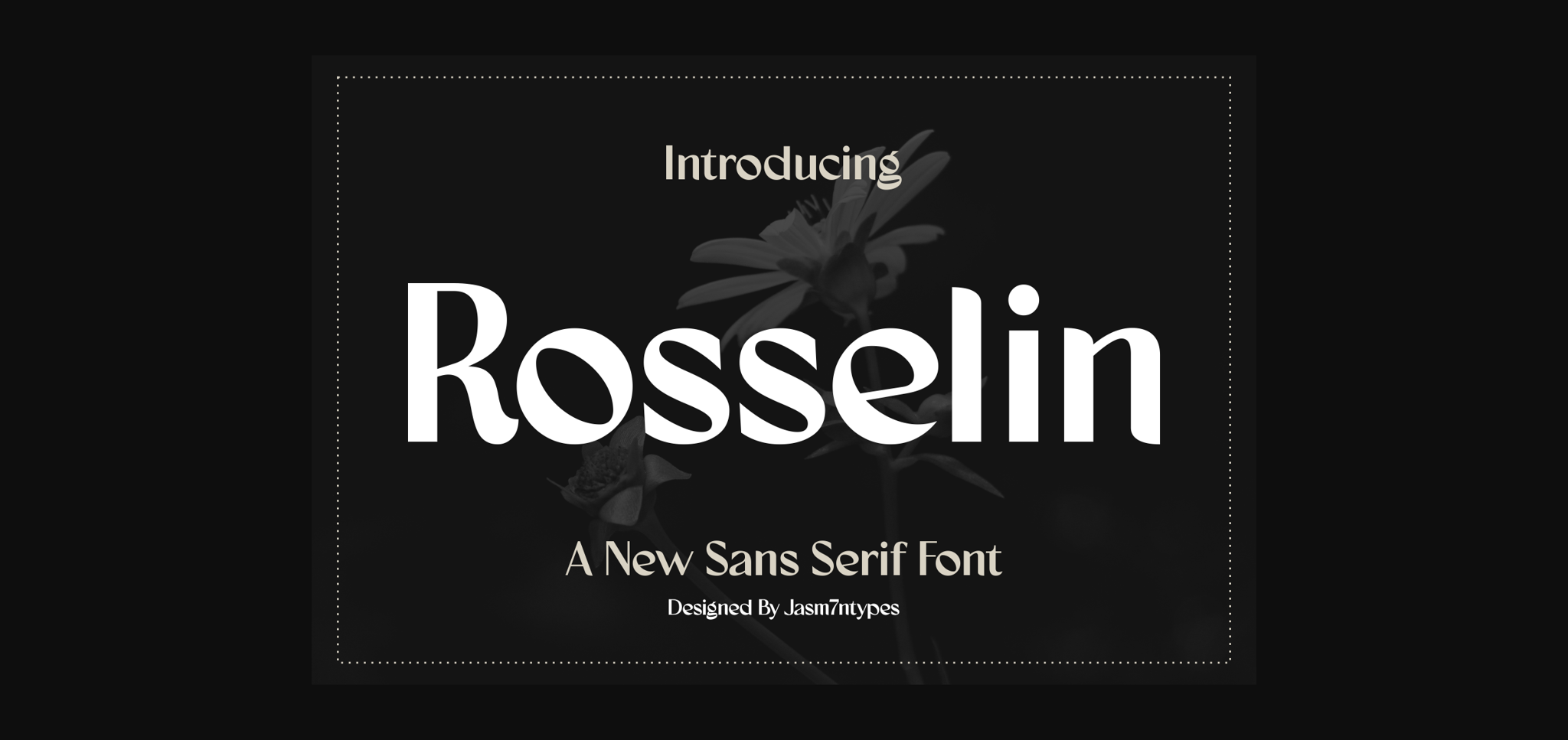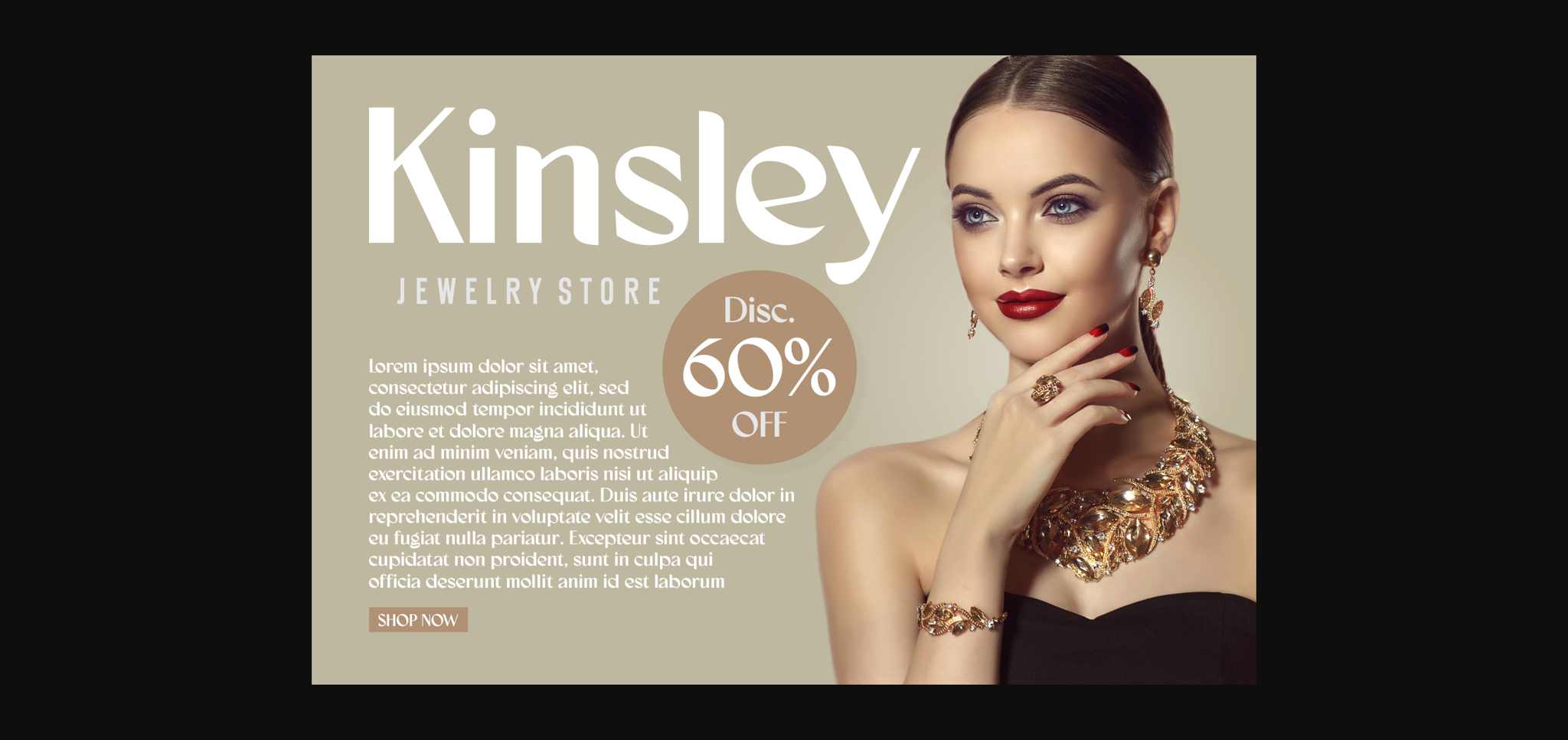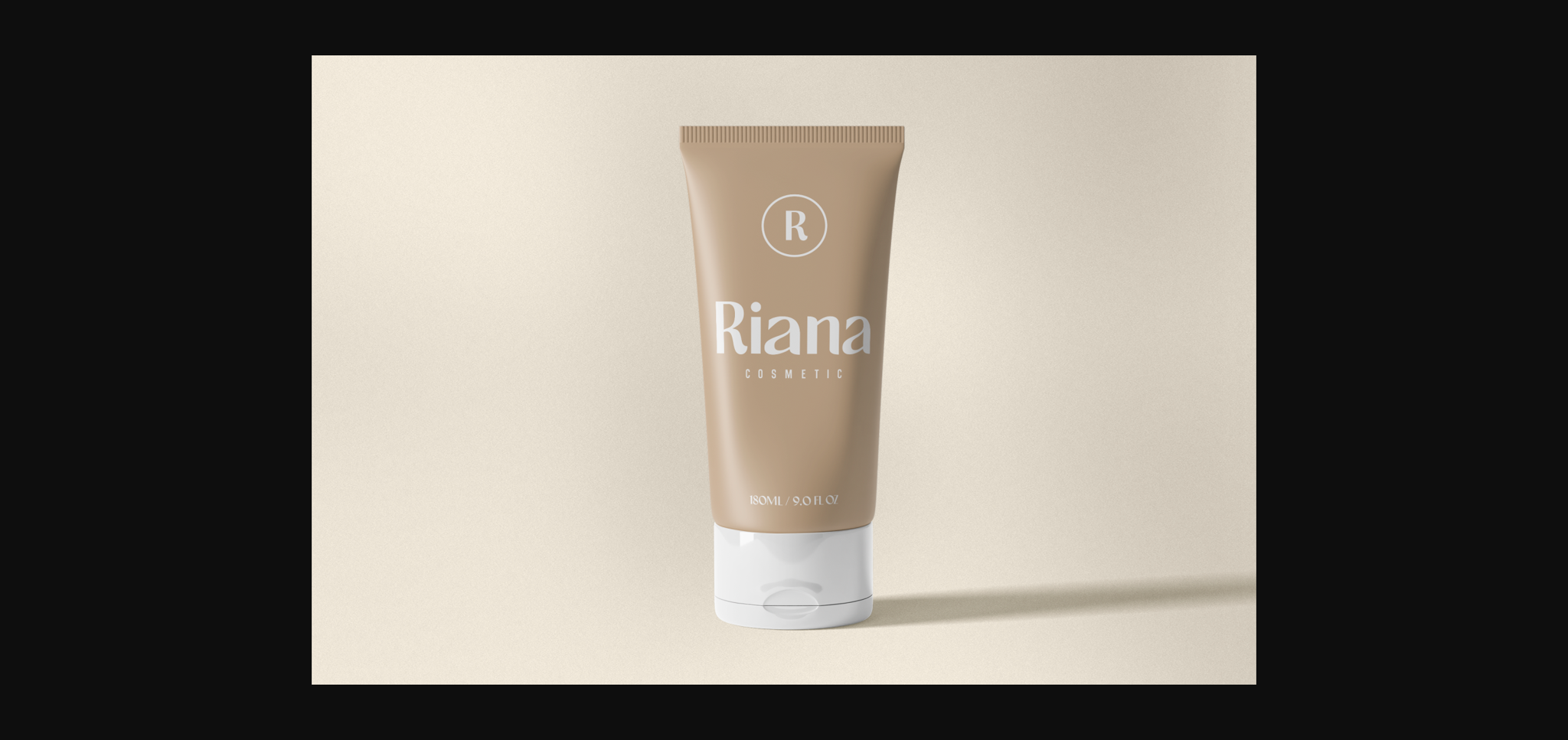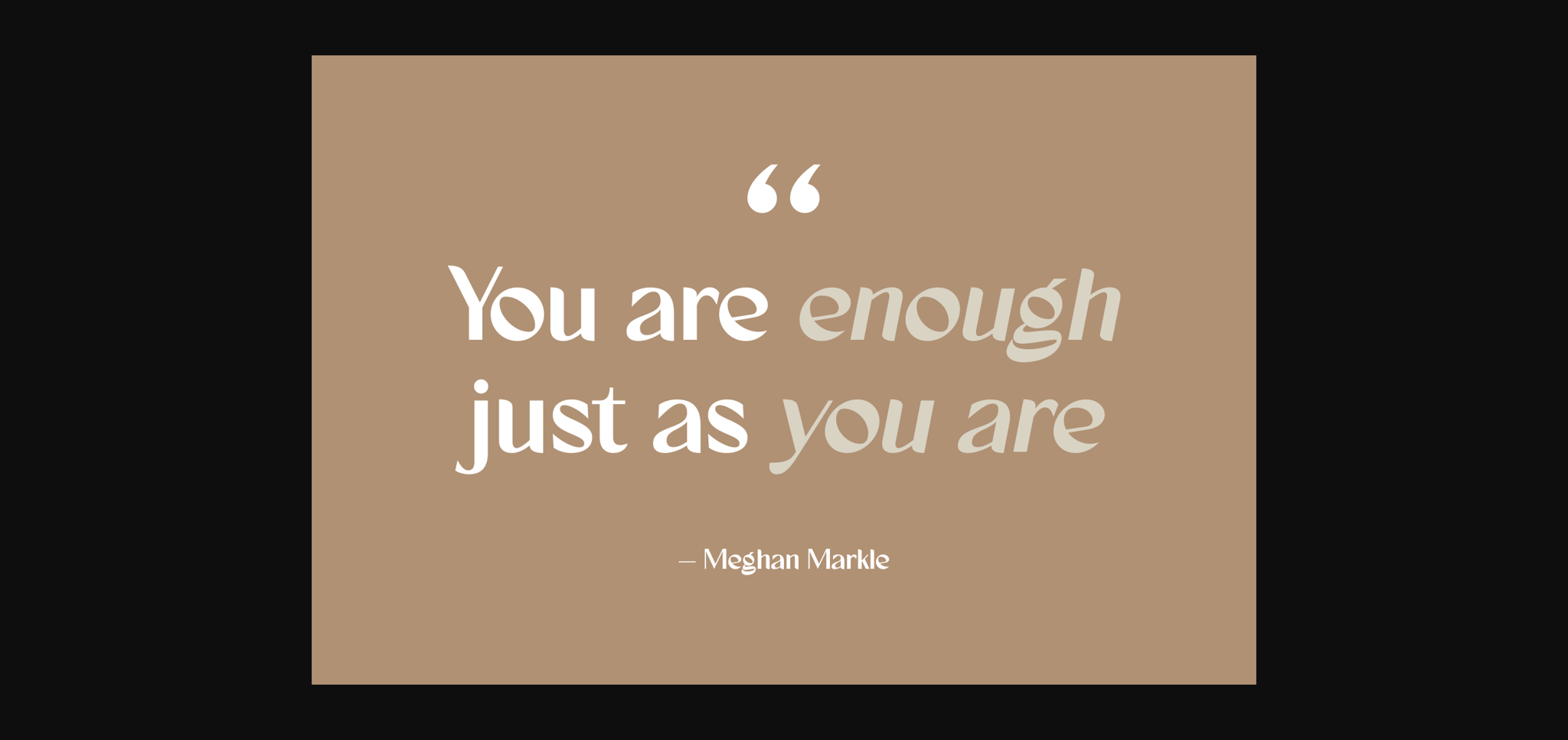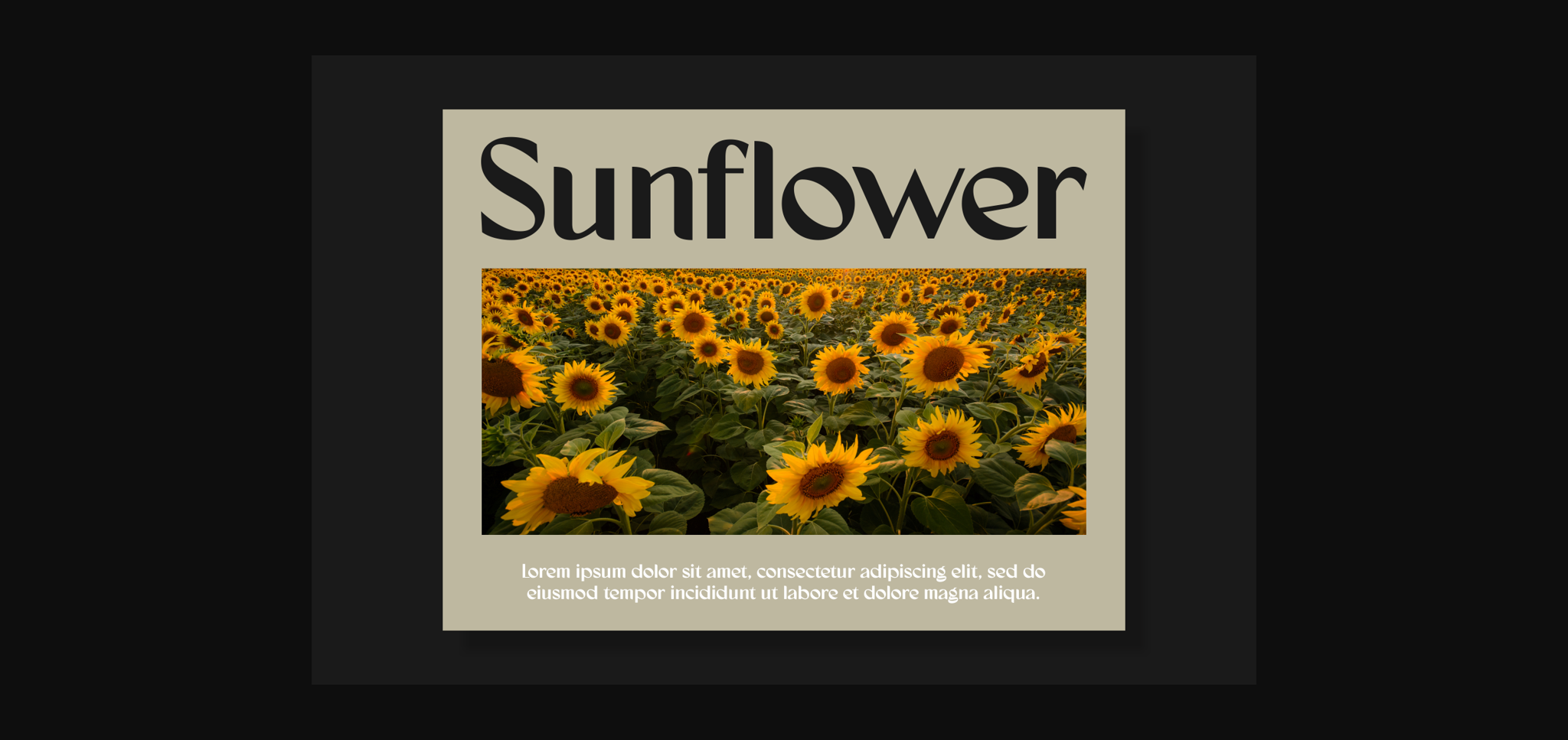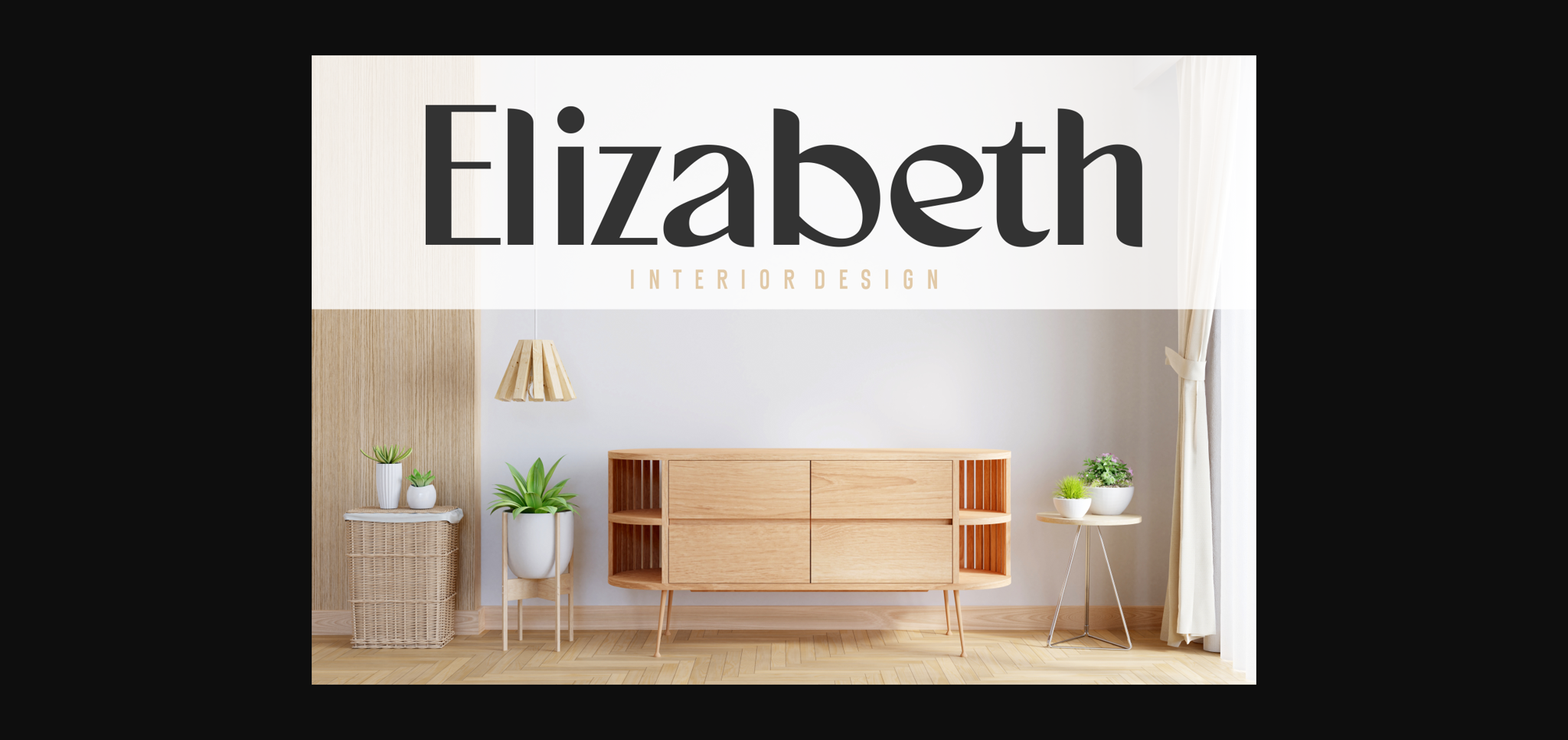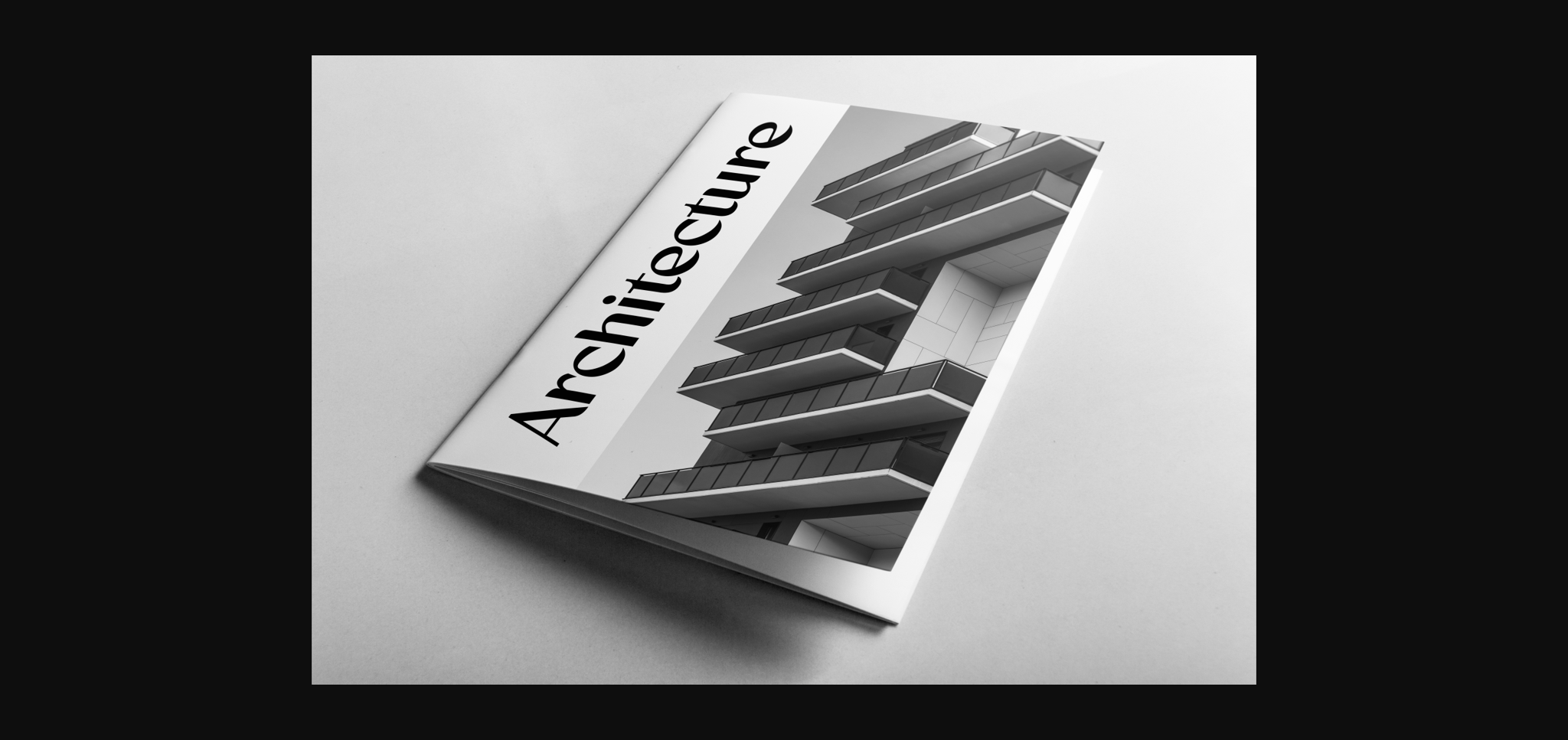
Rosselin Font
About Rosselin Font
Discover Rosselin, a sophisticated sans-serif font that exudes elegance and boldness. Perfect for creating a unique brand image, Rosselin is remarkably versatile. It exudes an authentic charm, making it perfect for book covers, apparel, and even greeting cards. Its clean and smooth appeal enhances any design from logos to magazines. Rosselin is not just a font, but also a whole library with a versatile font family including Regular and Italic styles. Its trendy design makes it a top choice for seasonal and packaging designs. It’s also well-suited for creating impactful quotes and seamlessly blending into any apparel design, including T-shirts. With multilingual support, Rosselin reaches beyond borders, celebrating diversity and inclusivity in design. Immerse yourself in the ease and style of Rosselin, a truly all-in-one font solution.